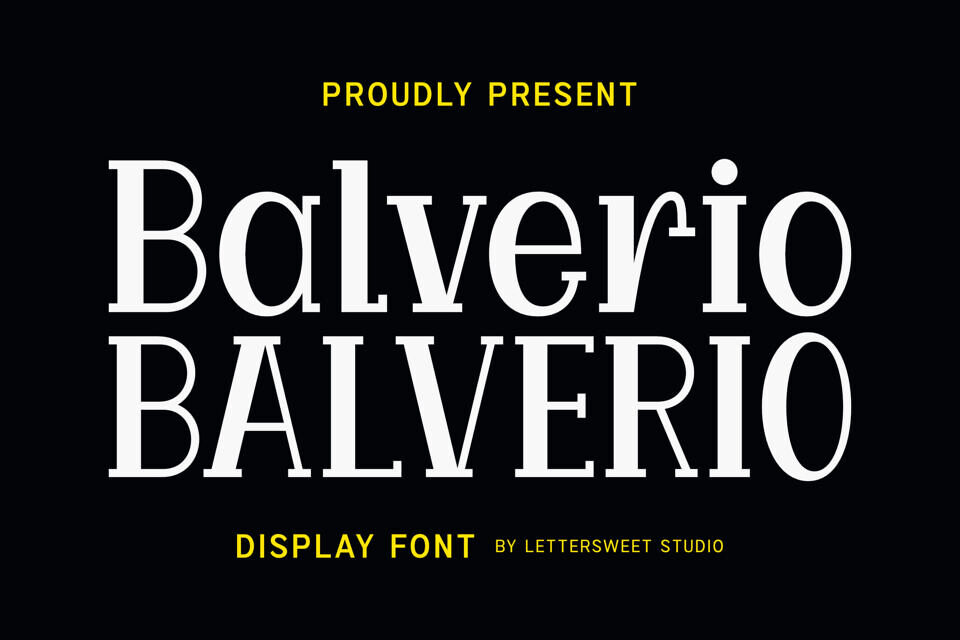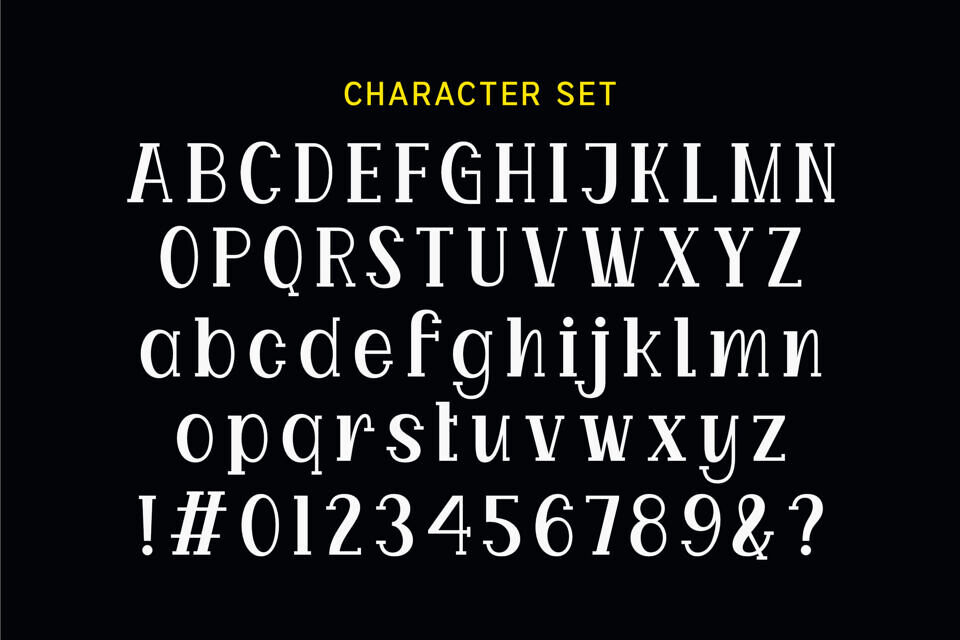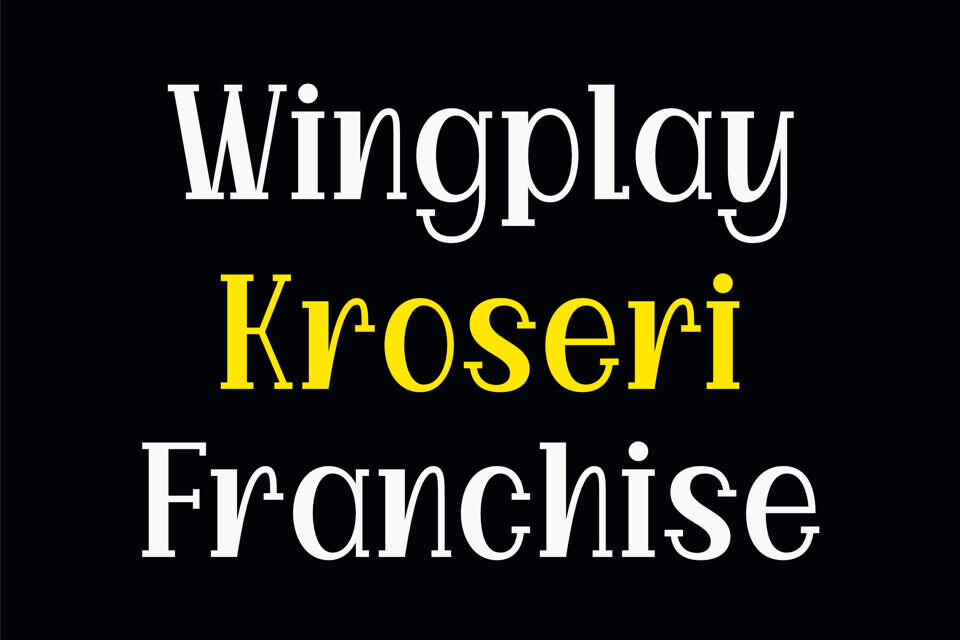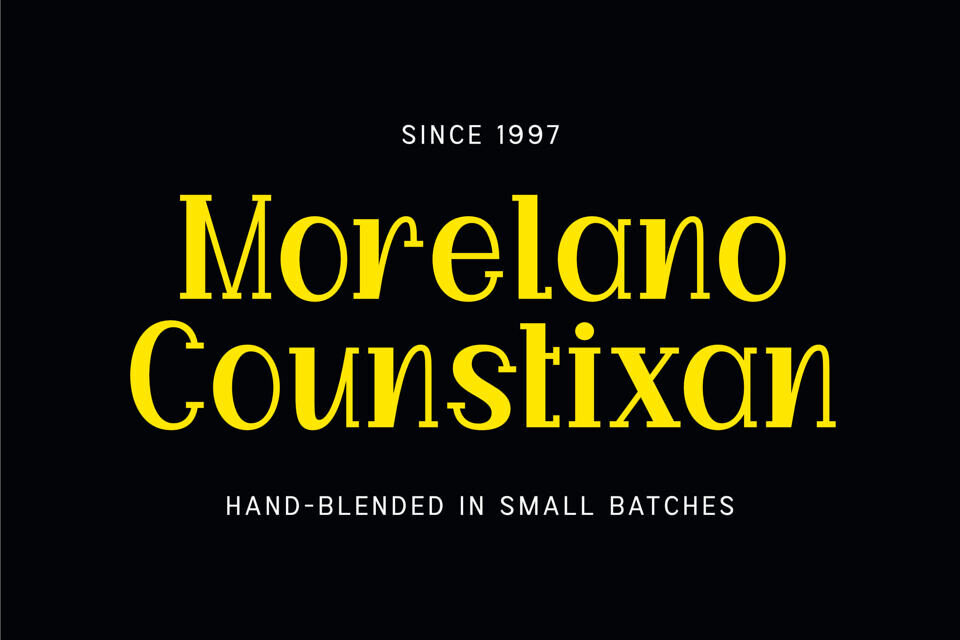
Balverio Font
Balverio is an elegant display serif font designed to deliver a strong, premium, and timeless visual presence. Its refined contrast, sharp details, and balanced proportions make it perfect for designs that demand attention and authority.
This font is built for impact — not for long paragraphs. Balverio shines in headlines, branding, logos, posters, editorial layouts, and luxury visuals, where first impressions matter.